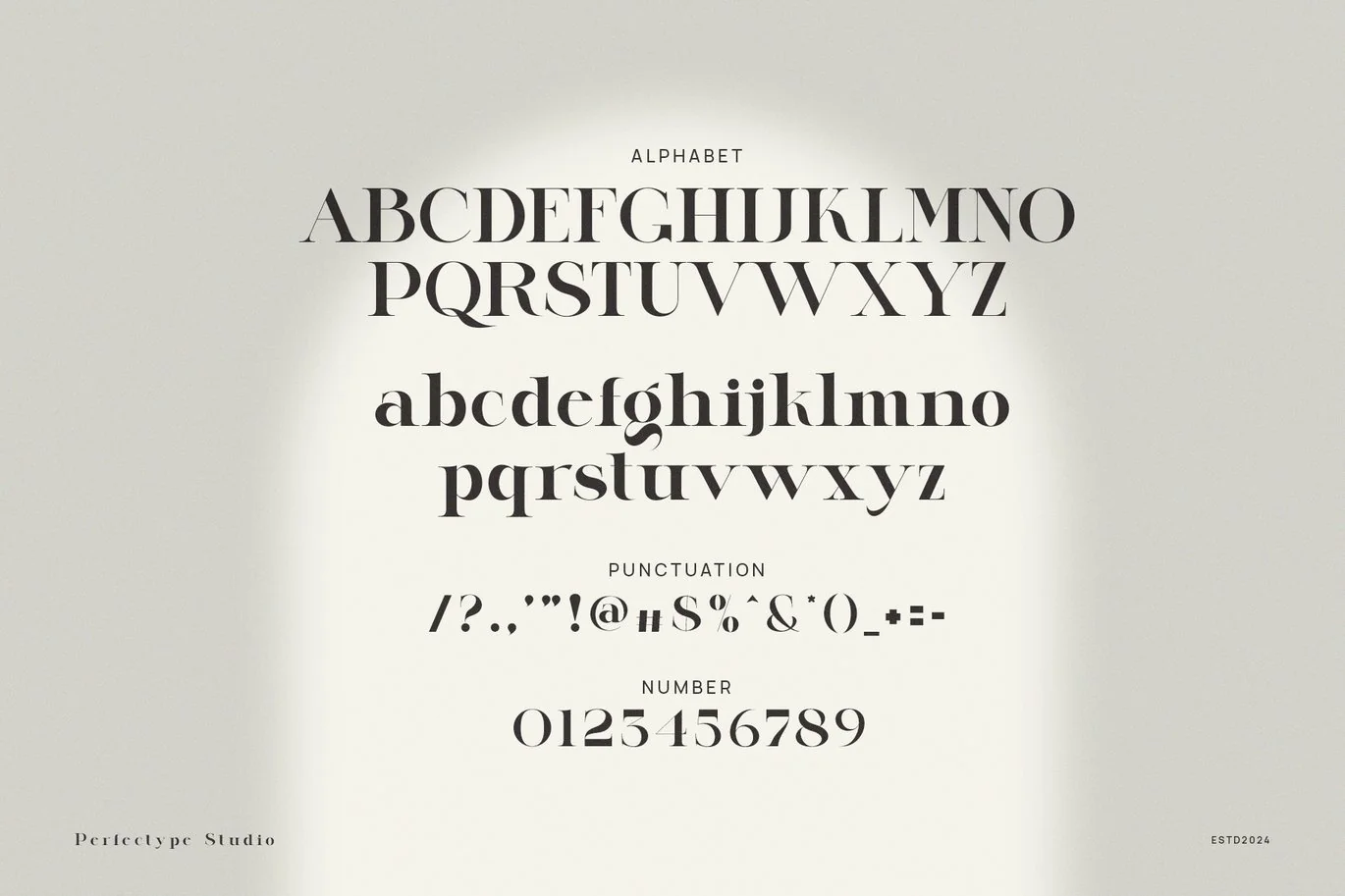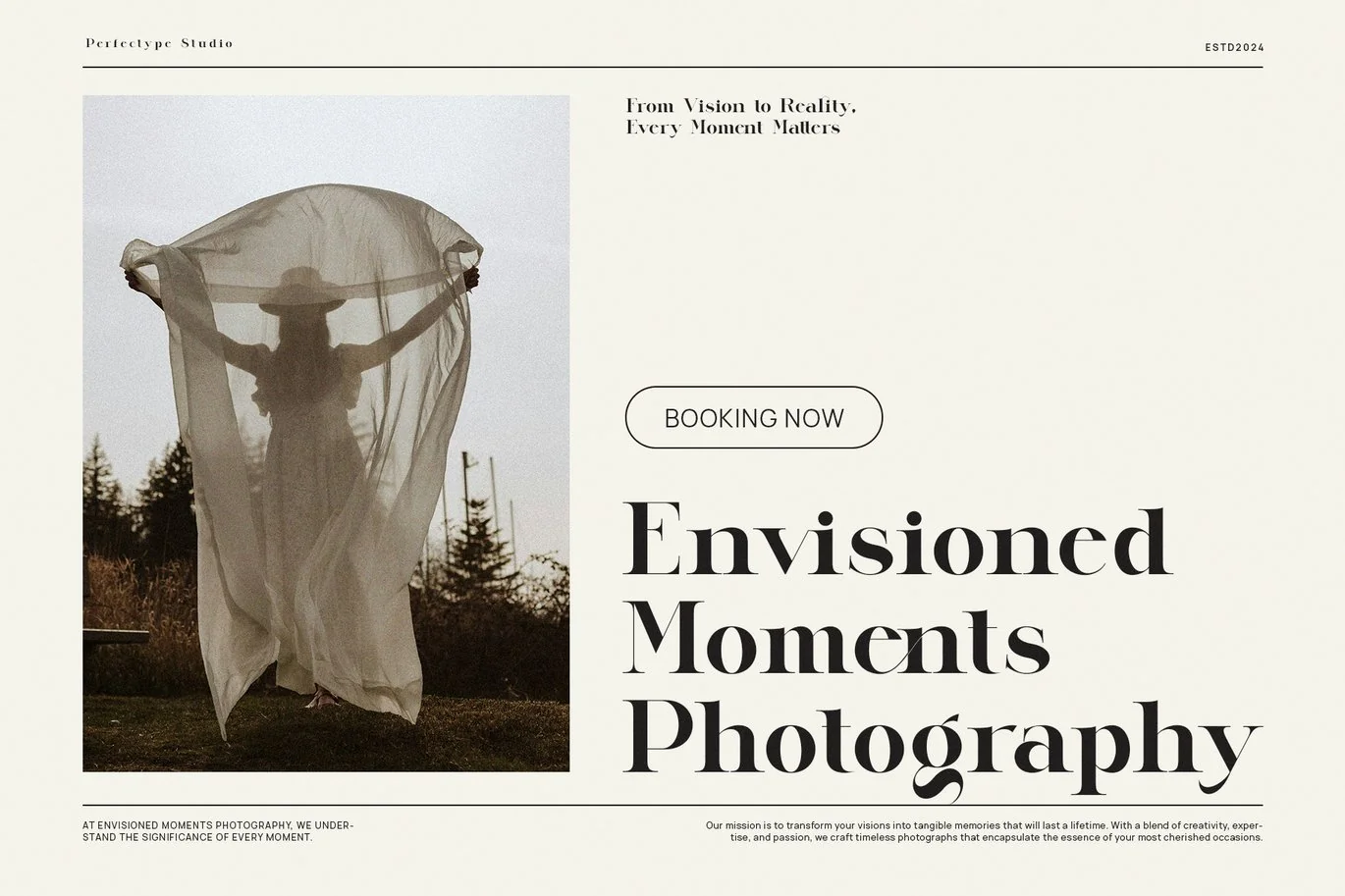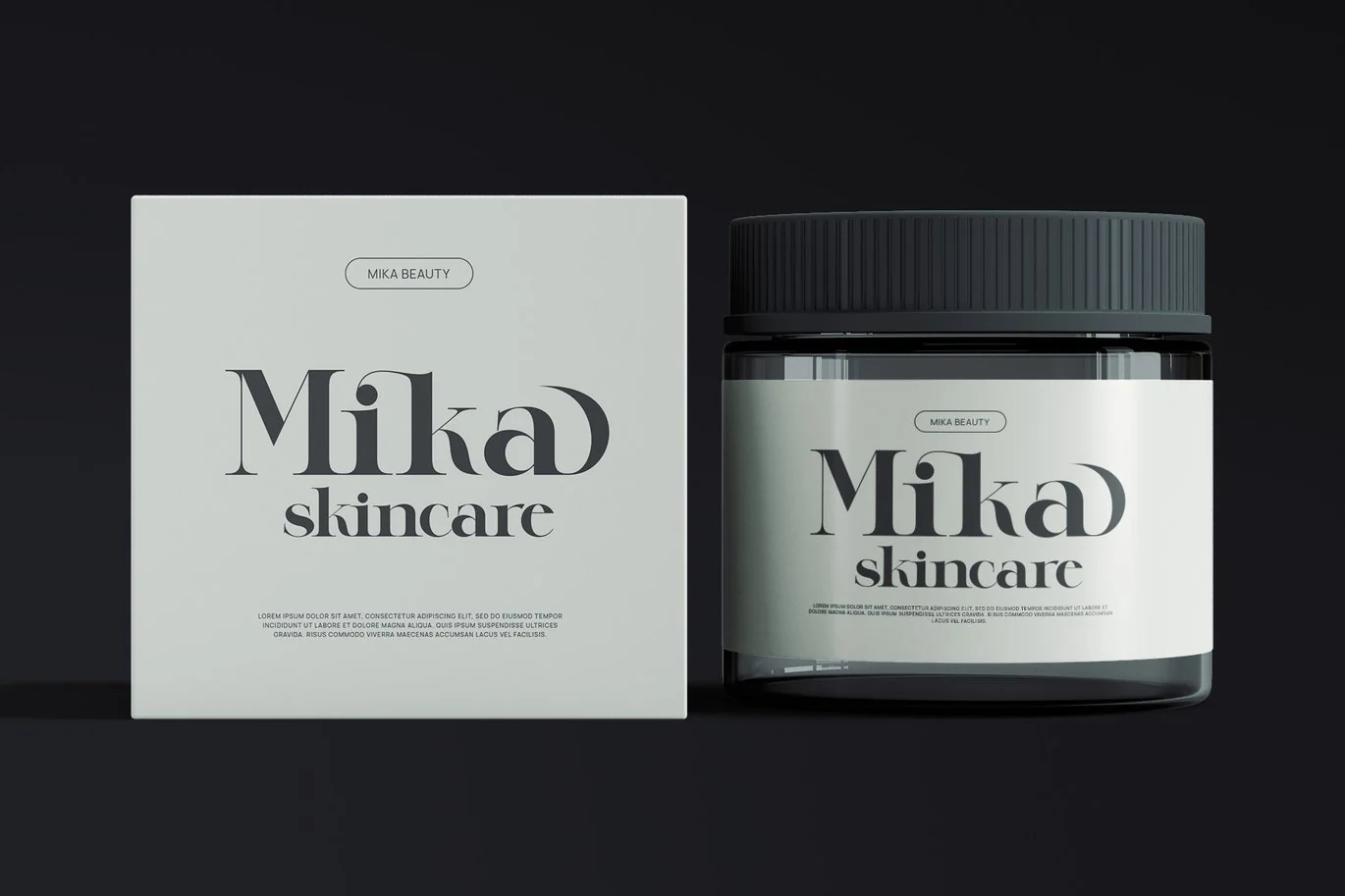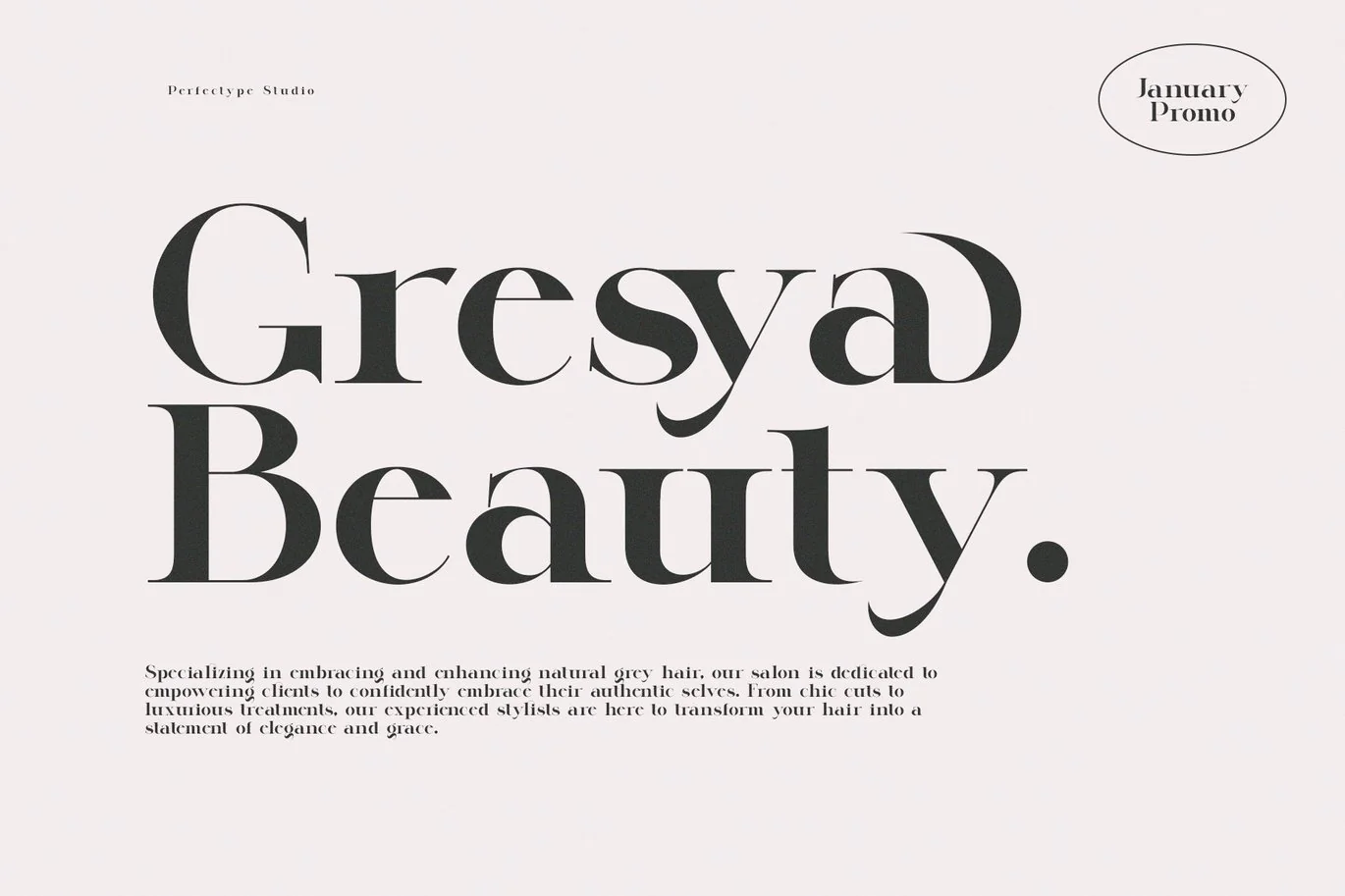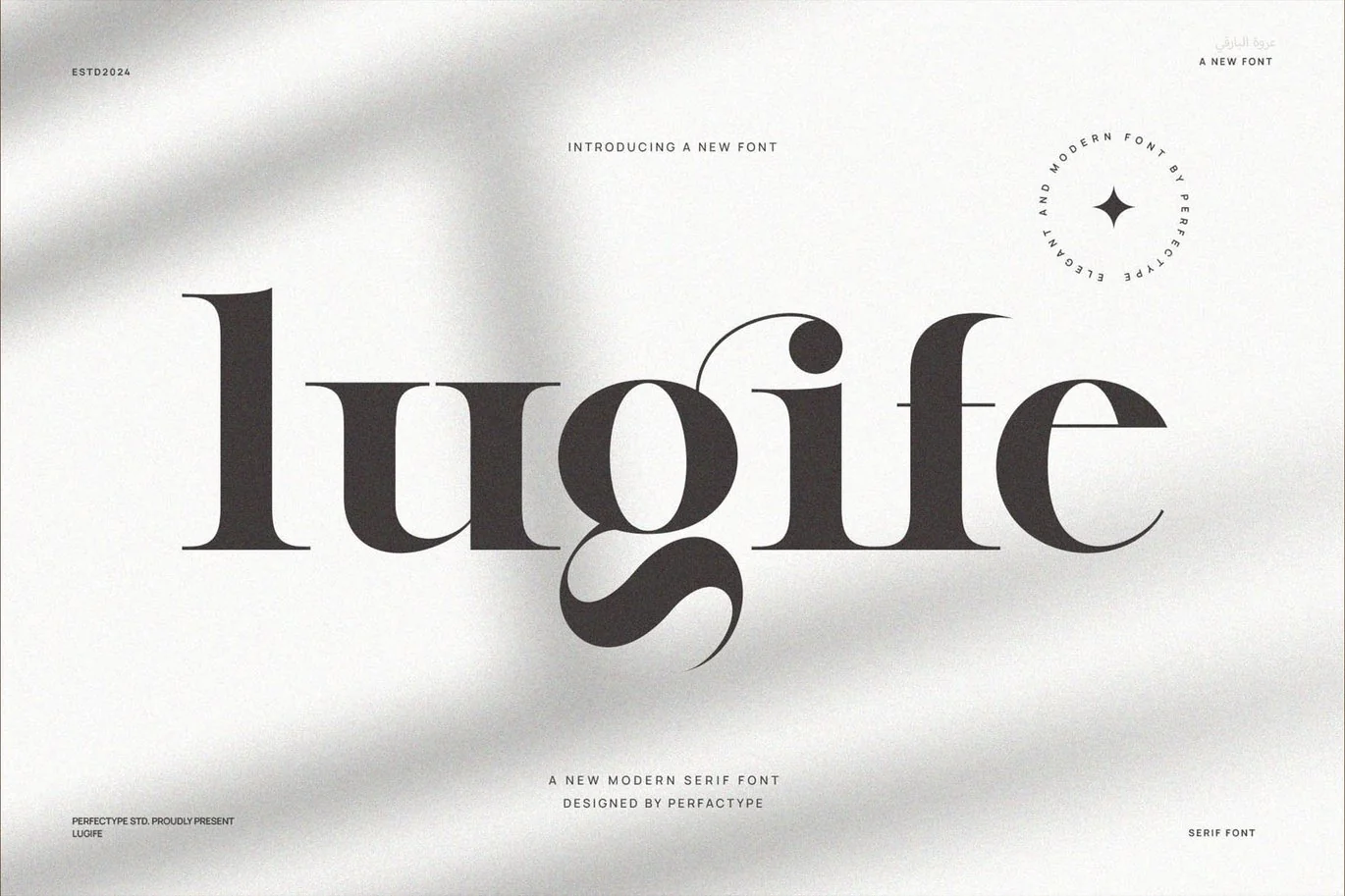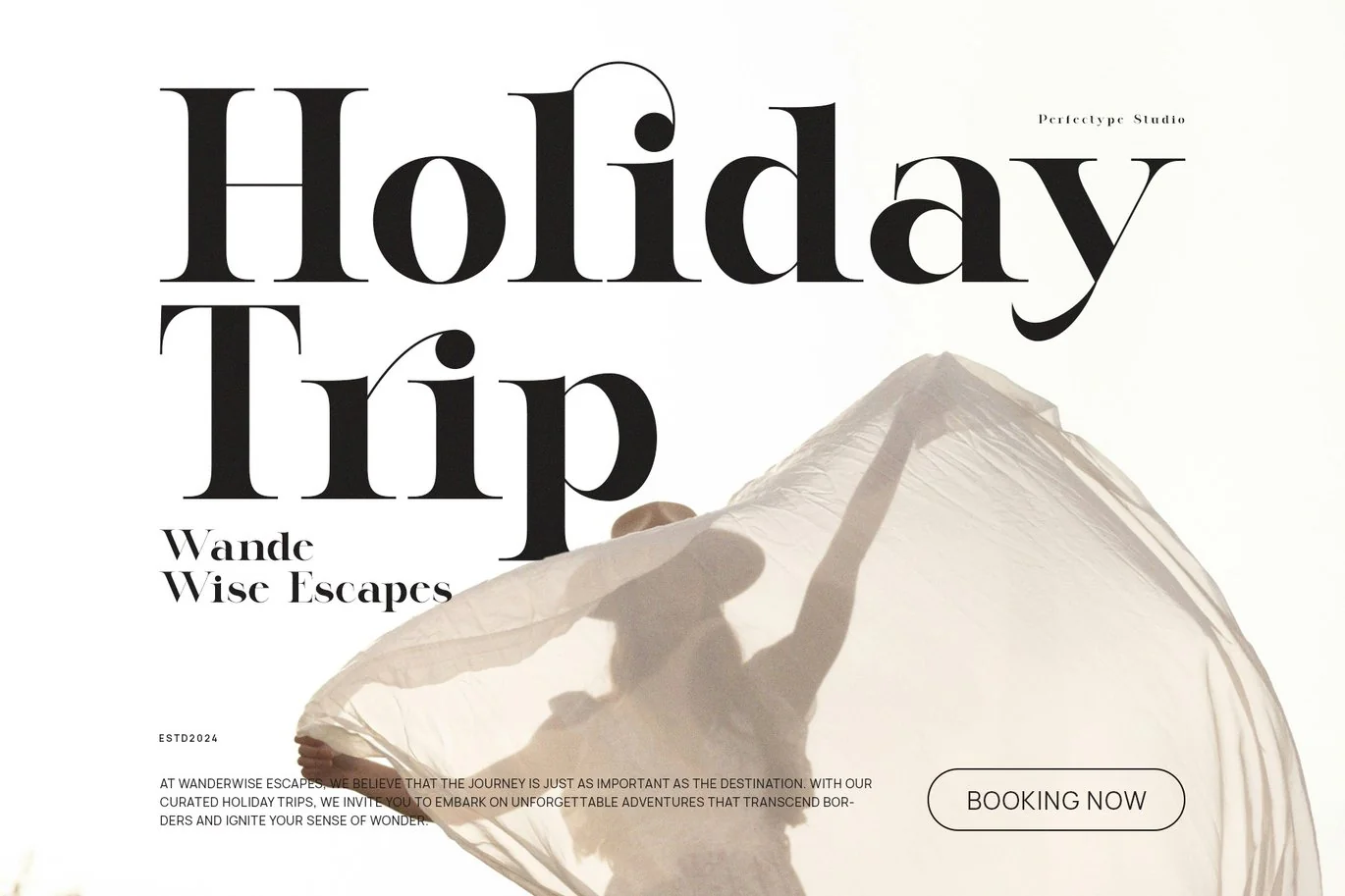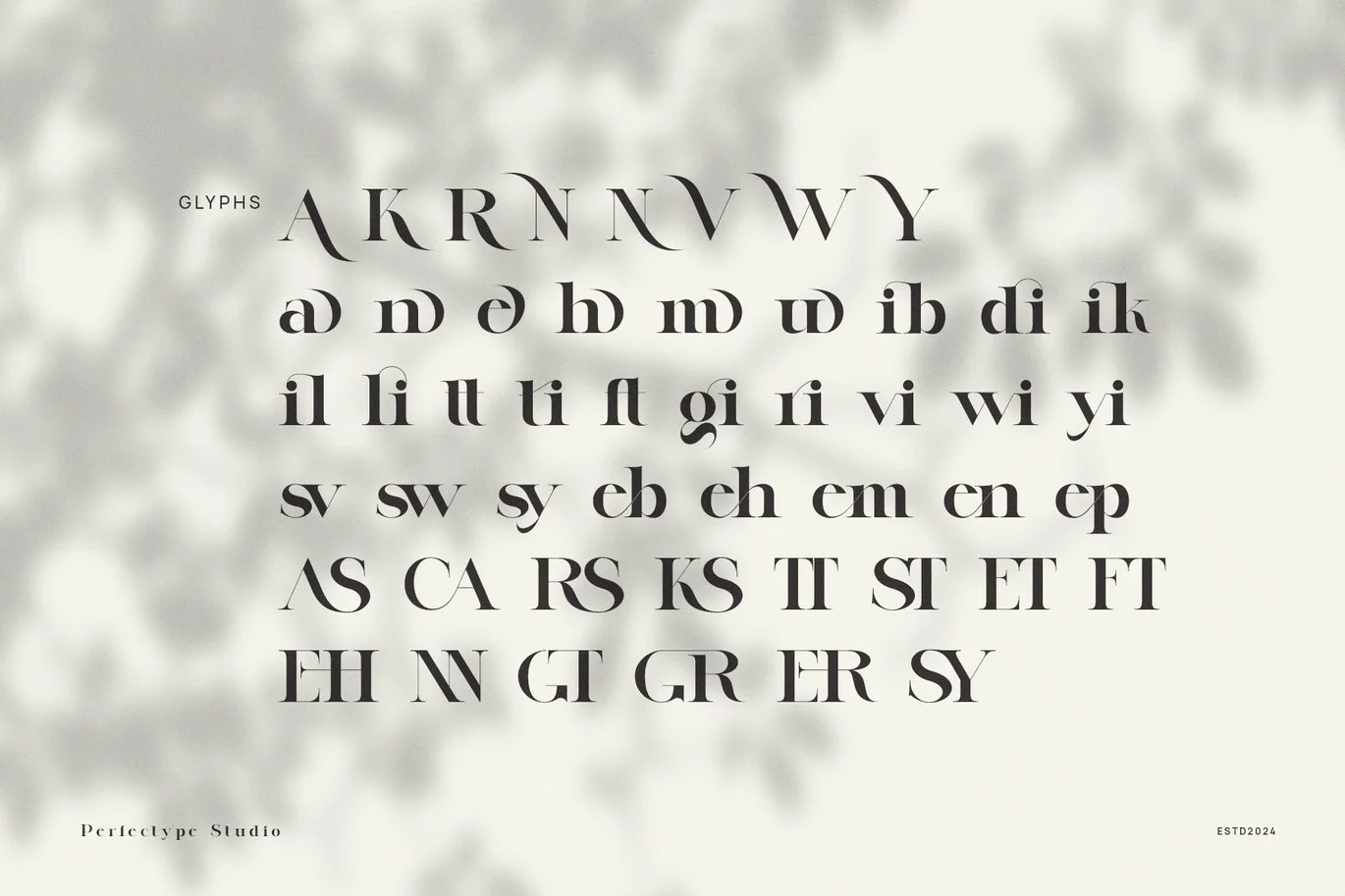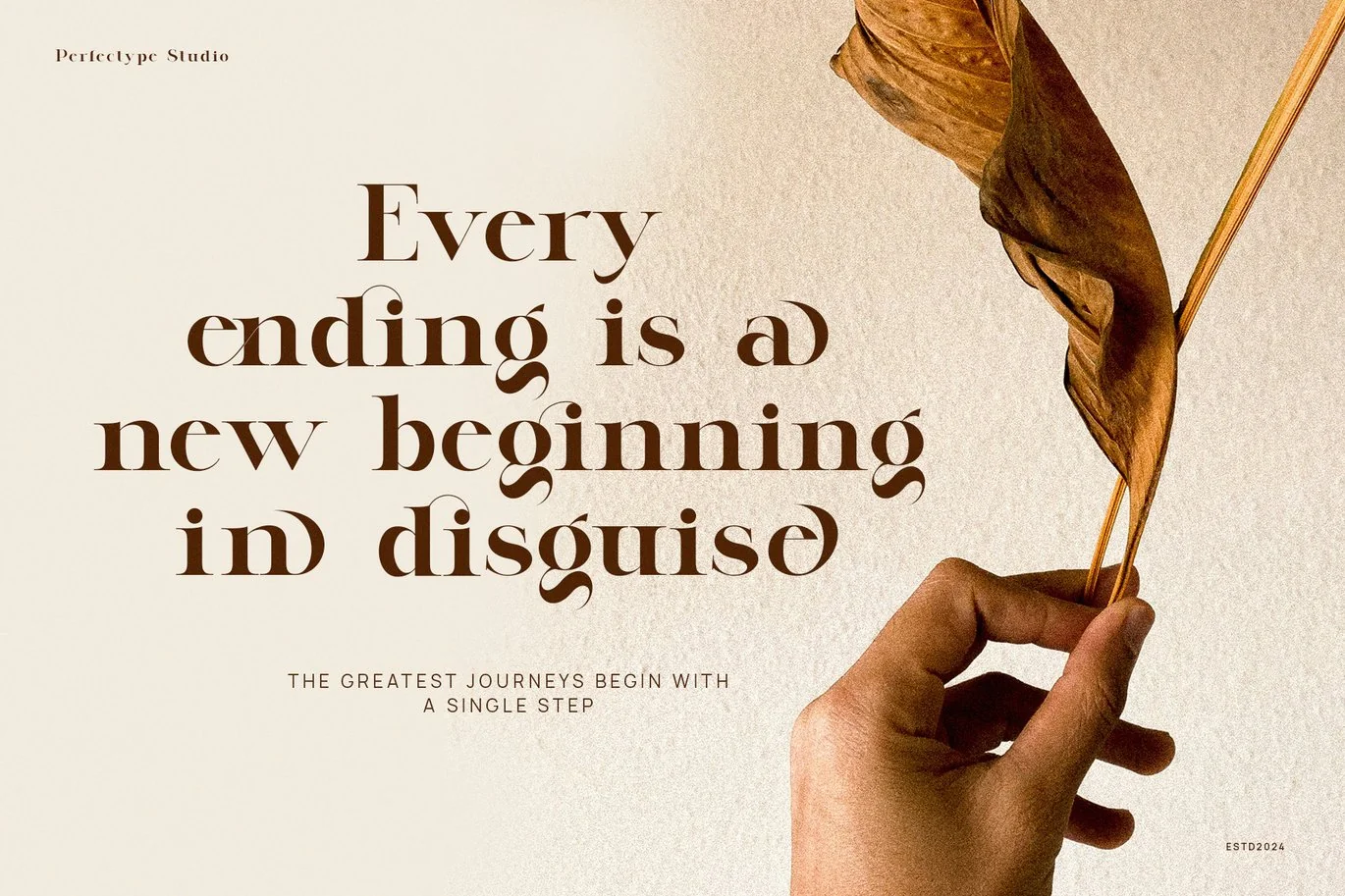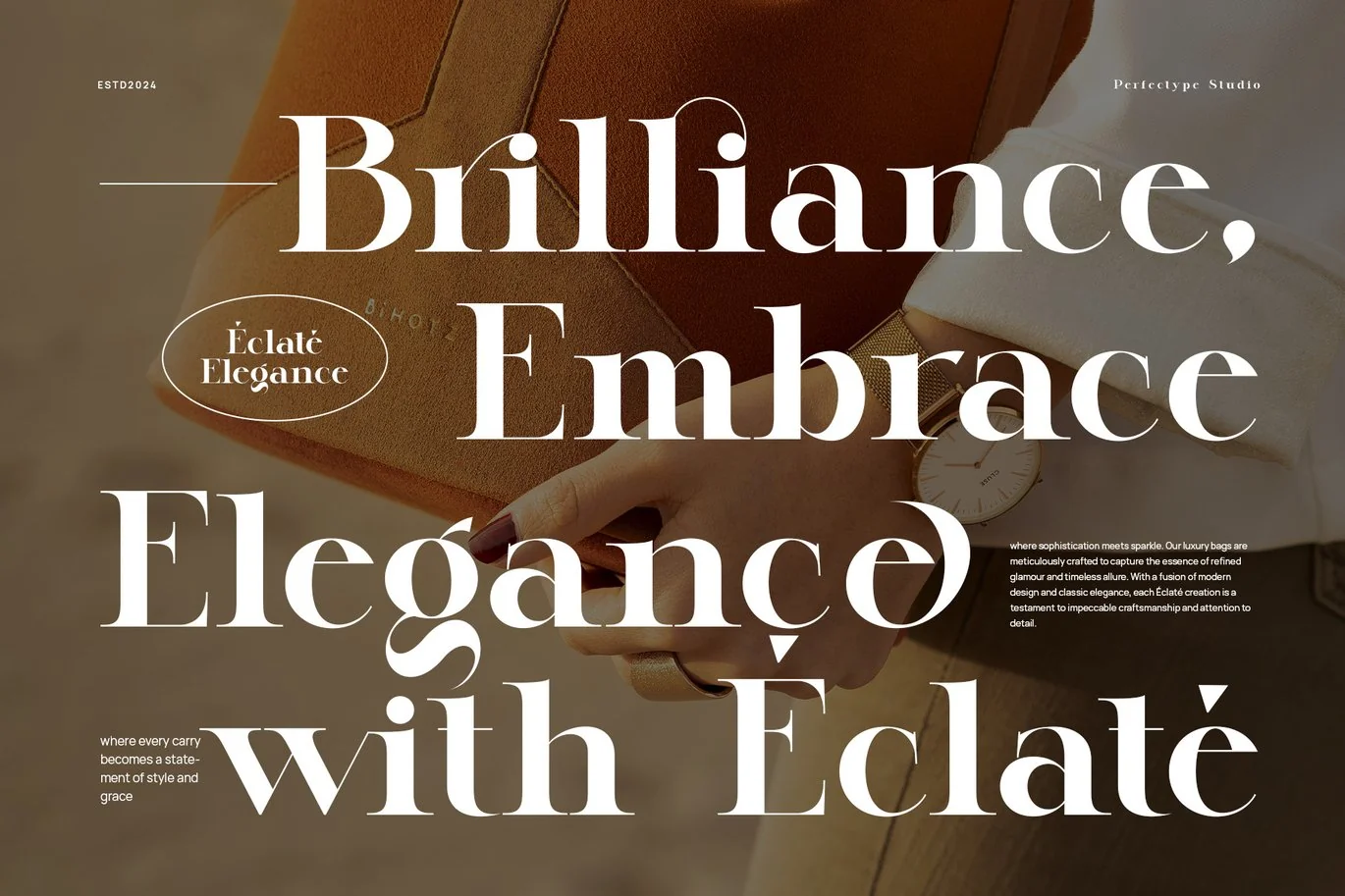
Lugife Modern Elegant Serif Font Typeface
Lugife Modern Elegant Serif is a strikingly refined typeface that blends contemporary aesthetics with timeless elegance. Designed with precision and artistry, this font features graceful serifs, fluid ligatures, and stylish alternates, making it the perfect choice for high-end branding, editorial design, and luxurious packaging. Its unique character shapes add an exclusive touch to any visual composition, ensuring your designs stand out with a sense of sophistication.
With its balanced contrast and elegant curves, Lugife is ideal for fashion magazines, boutique logos, upscale product packaging, and premium website designs. Whether used in large headlines or delicate body text, this typeface maintains a seamless flow and readability, enhancing the overall visual impact. The subtle yet distinctive letterforms create a refined statement, making it suitable for industries such as beauty, fashion, lifestyle, and minimal luxury branding.
Lugife’s versatility allows it to shine in both modern and classic design aesthetics. From sleek advertising campaigns to wedding invitations and high-fashion lookbooks, this font brings an air of exclusivity to any project. Its beautifully crafted ligatures and alternate characters add a bespoke feel, giving designers the flexibility to create unique, customized typography.
For those seeking a typeface that embodies both modern refinement and timeless beauty, Lugife Modern Elegant Serif is an essential addition. Elevate your designs with this effortlessly chic and sophisticated font, perfect for those who appreciate high-end, detail-oriented typography.